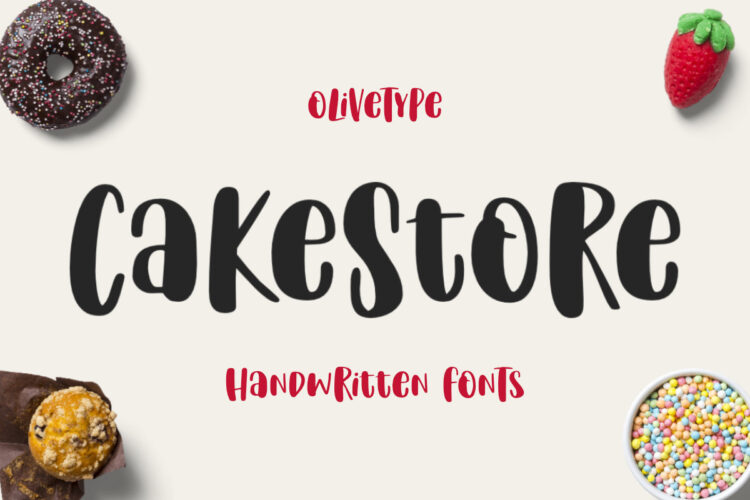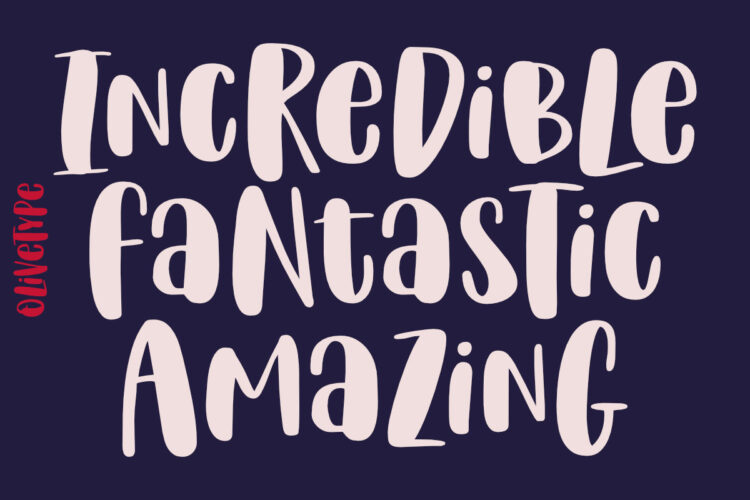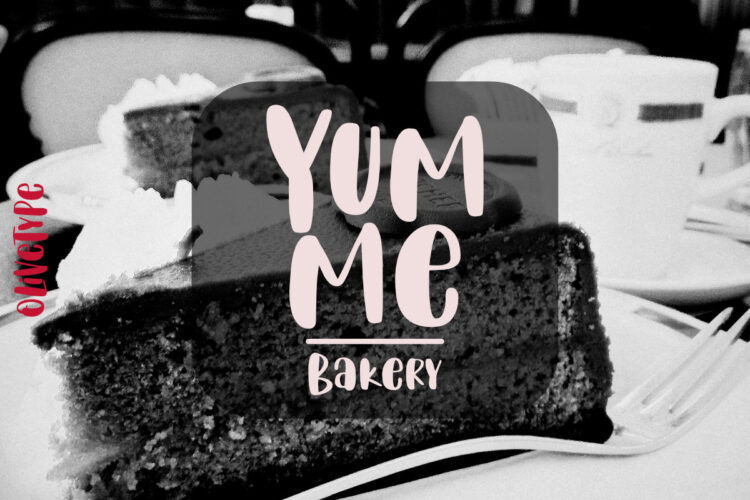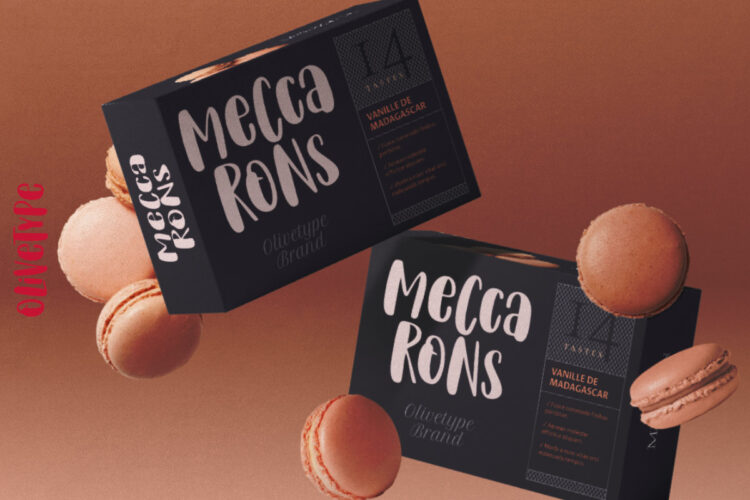
Cake Store is a fun handwritten font, carefully handcrafted to become a true favorite. Its casual charm makes it appear wonderfully down-to-earth, readable, and ultimately, incredibly versatile.